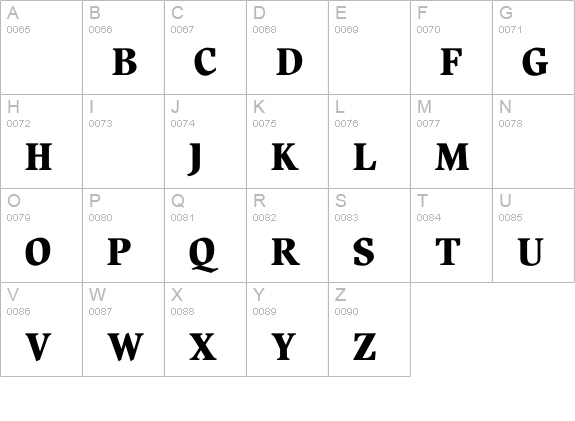
BeckenhamExtraBold Font Details
Introducing BeckenhamExtraBold font, a bold and eye-catching typeface that commands attention with its strong and distinctive presence. Ideal for headlines, titles, and branding projects, this font exudes confidence and modernity. What sets BeckenhamExtraBold font apart is its versatility and adaptability to various design contexts, making it a go-to choice for designers looking to make a bold statement. Whether used in print or digital media, this font ensures readability and impact, making your message stand out effortlessly. The best part? BeckenhamExtraBold font is available for free download at FontsMarket.com, where you can access this powerful typeface and elevate your design projects with its bold aesthetic. Don't miss out on the opportunity to add this versatile font to your collection and make a lasting impression with your designs.